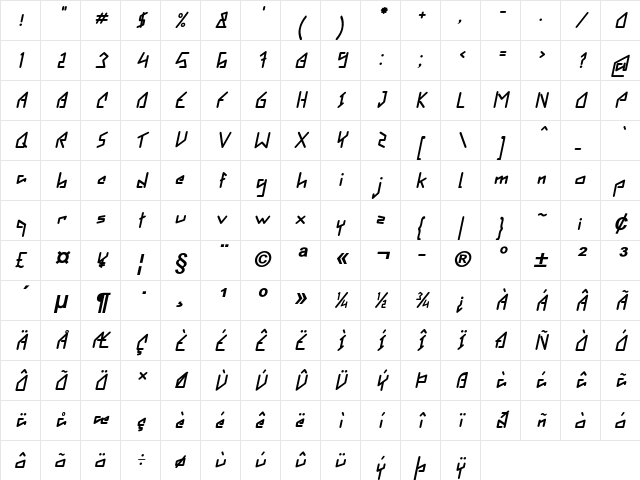
Zeribo Bold Italic Free Font
Zeribo Bold Italic
Zeribo Family
Design Context for Zeribo
Zeribo is a composed and adaptable typeface that performs quietly and consistently across a wide range of design contexts. The slanted form adds forward momentum and visual energy. Its bold stroke weight gives it real presence on the page.